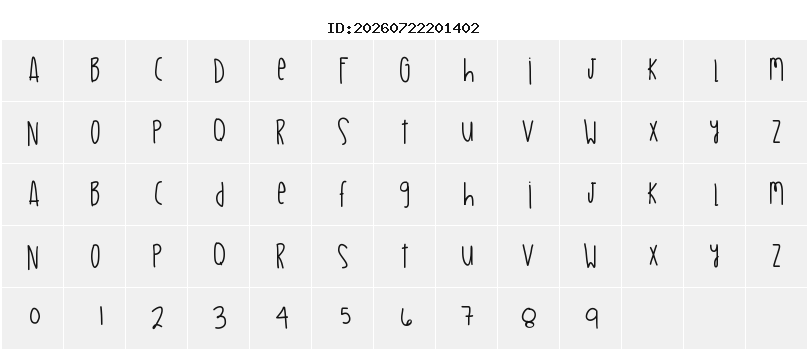
MyLittleJewels Preview
About MyLittleJewels.ttf
MyLittleJewels.ttf is a modern, elegant sans-serif font designed for ultimate readability and visual harmony. Perfect for branding, headlines, web design, and print materials.